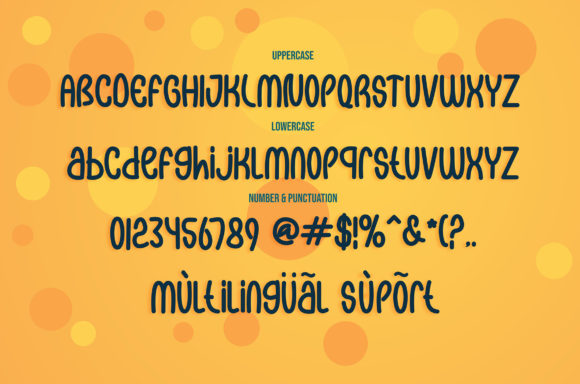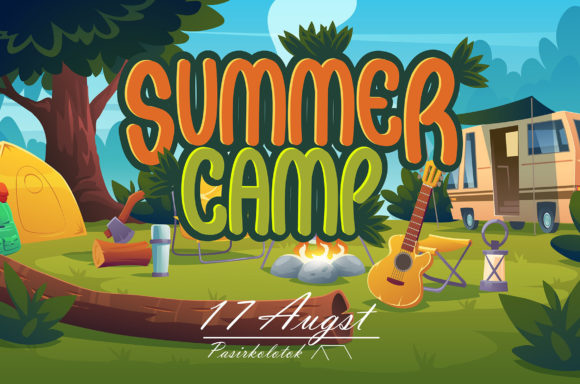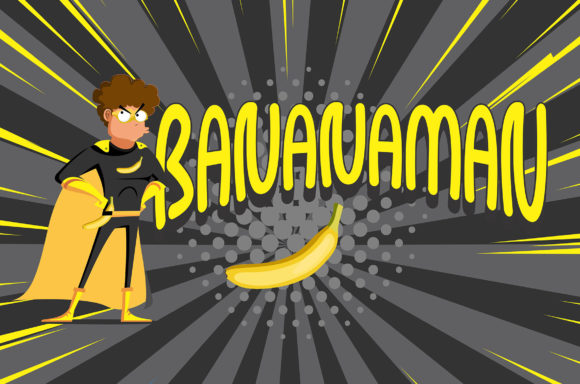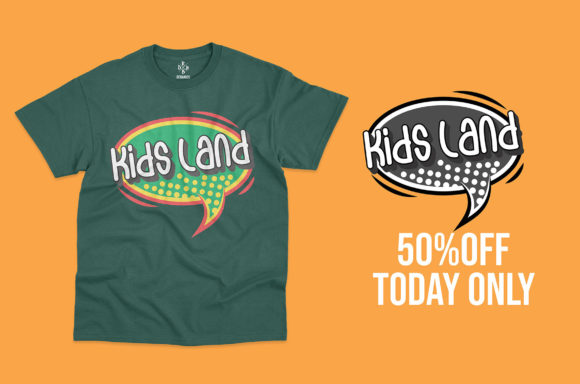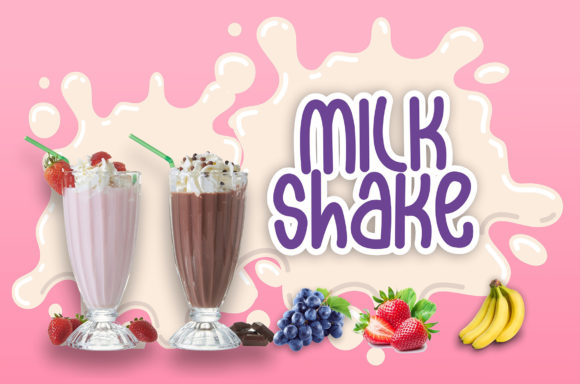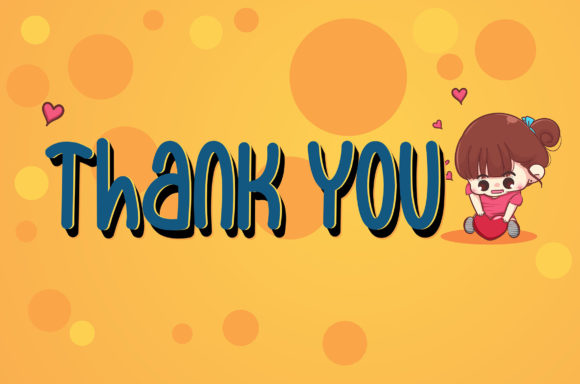
Welcome to the World of Whimsical Typography
Have you ever been brainstorming ideas for a craft project or presentation, and suddenly, a burst of creativity hits you? You envision a bright, cheerful design that’s sure to capture the attention of your audience. For designers and crafty individuals alike, finding the perfect font can be the key to unlocking that special something. That’s where the Hello Velisha Font comes in – a delightful display font that’s as versatile as it is charming.
This cute and playful font is perfect for a variety of projects, from crafting and digital designing to presentations and greeting card making. With its whimsical flair, the Hello Velisha Font is a valuable addition to any designer’s toolkit, offering endless possibilities for creative expression. Whether you’re a seasoned pro or just starting out, this font is sure to bring a touch of warmth and personality to your work.
Hello Velisha Font Key Features
- Font Family: Hello Velisha Font is a sans-serif typeface designed to be clean and modern.
- Unique Characteristics: Features a unique blend of geometric and organic elements, creating a distinctive visual identity.
Hello Velisha Font Review
I’ve had the chance to work with Hello Velisha Font, and I must say it’s a unique and interesting choice for digital designers. Here’s my honest review.
- ✨ Unique and quirky feel: Hello Velisha Font has a distinct character that can add a touch of personality to your designs.
- ✨ Versatile: This font can be used in a variety of contexts, from logo designs to body text.
- ✨ Good legibility: Despite its unconventional design, Hello Velisha Font is still easy to read, making it a practical choice for designers.
- ⚠️ Limited font sizes: Hello Velisha Font can become pixelated at larger font sizes, which may not be ideal for designs that require larger text.
- ⚠️ Limited font styles: The font only comes in a few styles, which may limit its versatility for designers who prefer a wider range of options.
Hello Velisha Font is a solid choice for designers who want to add some personality to their designs. While it has some limitations, its unique feel and good legibility make it a practical choice for a variety of design projects.
For optimal results, use “Hello Velisha Font” for titles, headings, and other display text. It’s ideal for creating a friendly and approachable tone in your designs. You can also use it for branding and logos, as it’s highly customizable.